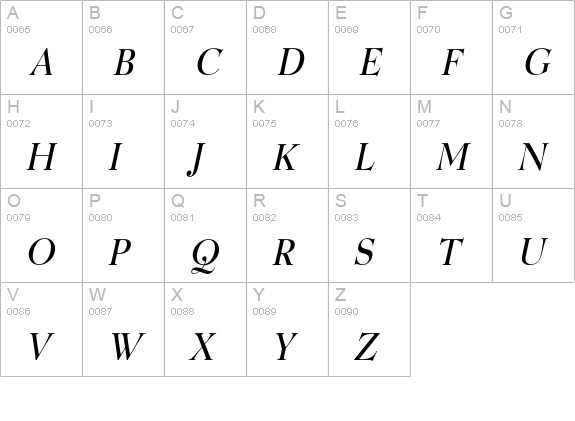
Luciano Condensed Italic is a distinctive, condensed-width, italic variant in the Luciano typeface family \xE2\x80\x94 well suited to design and typography projects.
The Luciano Condensed Italic font effortlessly combines elegance and modernity, making it a versatile choice for a wide range of design projects. With its sleek and sophisticated appearance, this font exudes a sense of style and sophistication. The italicized version of the Luciano Condensed font adds a touch of flair and dynamism to your text, making it perfect for creating eye-catching headings, quotes, and emphasis in your designs. What sets the Luciano Condensed Italic font apart is not only its aesthetic appeal but also its accessibility. This font is available for free download at FontsMarket.com, allowing designers and creatives to easily incorporate it into their projects without any cost. Whether you're working on branding materials, web design, invitations, or any other creative endeavor, the Luciano Condensed Italic font is a versatile and stylish choice that is sure to make your text stand out.